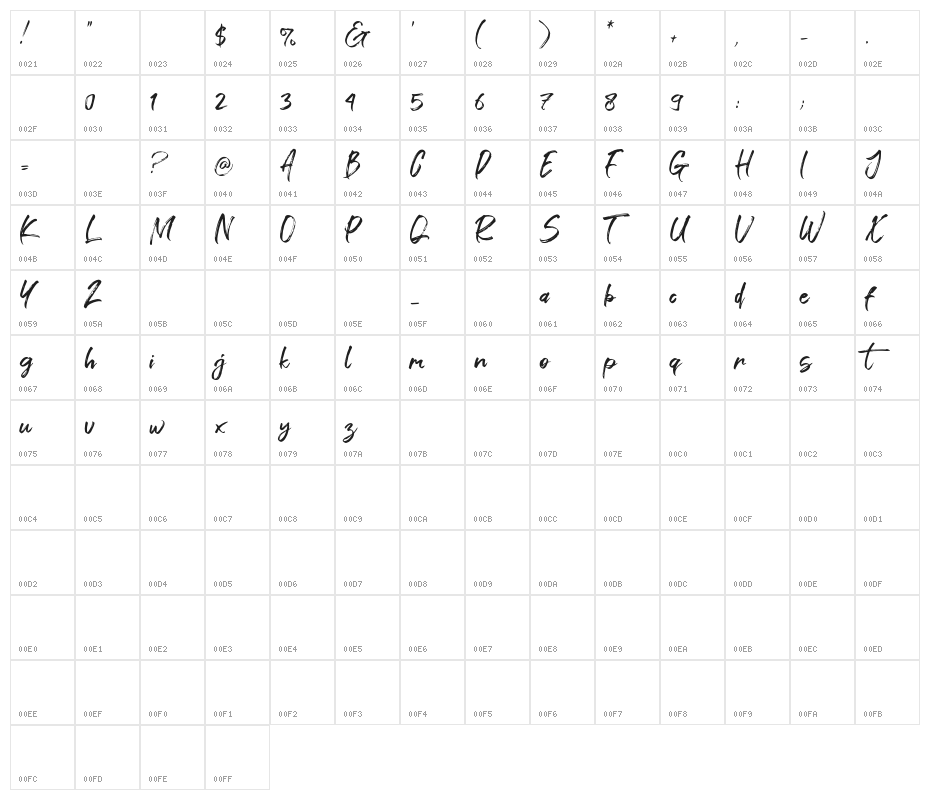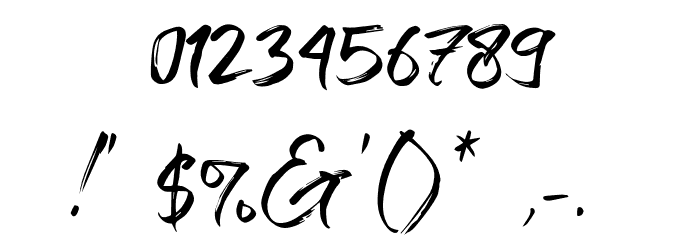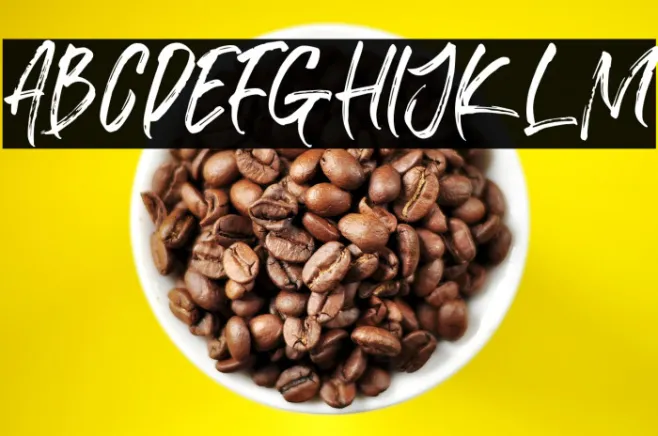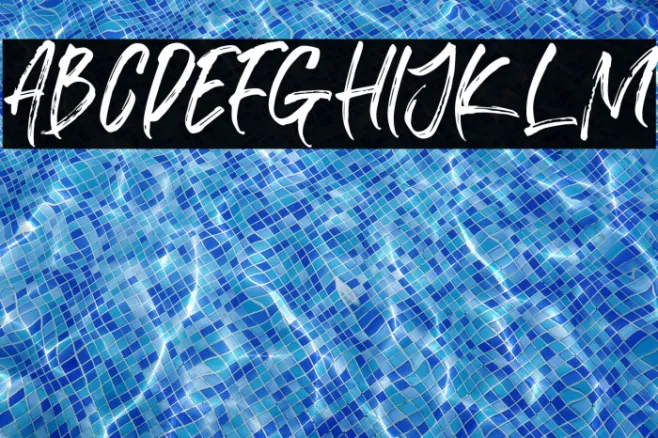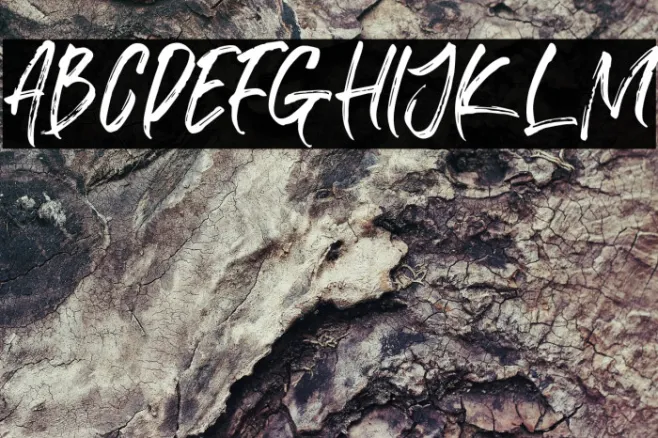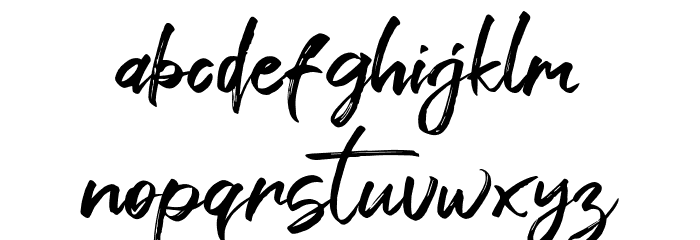
Gathan Font
Gathan Description
This font exudes a dynamic and energetic feel with its bold, brush-like strokes. The uppercase letters are characterized by their dramatic, sweeping lines and varying thickness, giving a sense of movement and flair. The lowercase letters maintain this fluidity, with a slightly more restrained style that complements the uppercase. Numbers and special characters are crafted with the same expressive quality, ensuring consistency across all glyphs. This font's handwritten appearance makes it ideal for projects that require a personal touch or artistic flair. Its unique style stands out, making it suitable for creative and bold design projects.